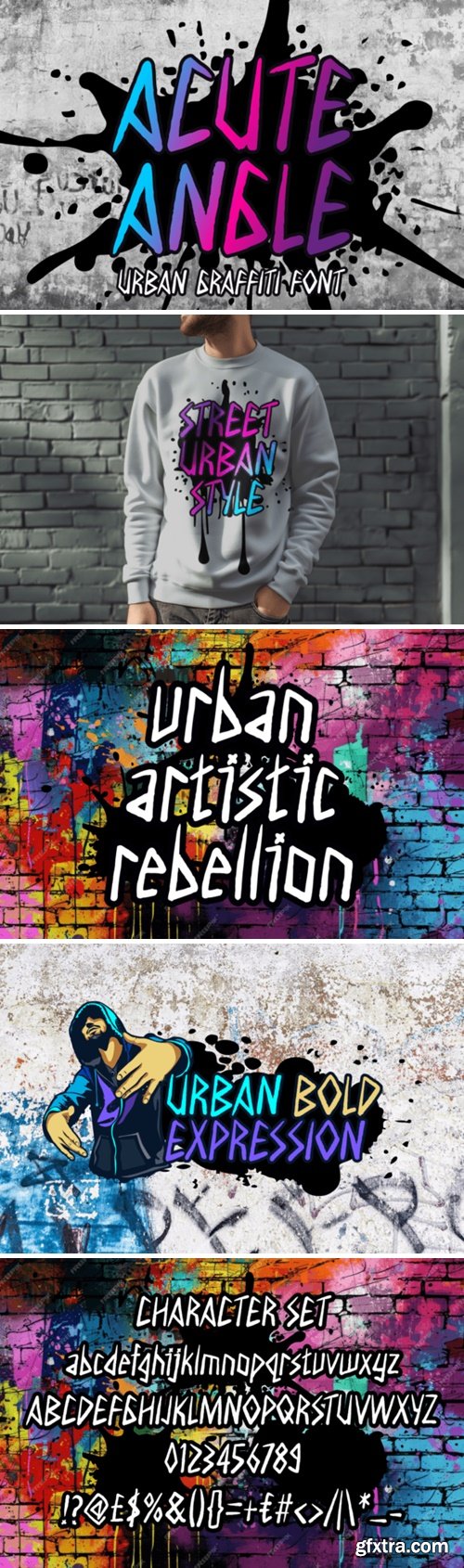
AcuteAngle’s urban style is ideal for projects targeting younger audiences or brands embracing streetwise aesthetics. The font’s hand-drawn quality ensures that your designs will have an authentic, personal touch, reminiscent of the vibrant street art found in cityscapes. Use AcuteAngle to create memorable movie titles, engaging magazine covers, or cool stickers that capture the imagination. Its rough, freestyle look is perfect for adding a bit of personality to your business materials or crafting projects. With AcuteAngle, your designs will not only be visually striking but also convey a sense of energy and creativity that resonates with audiences of all ages.